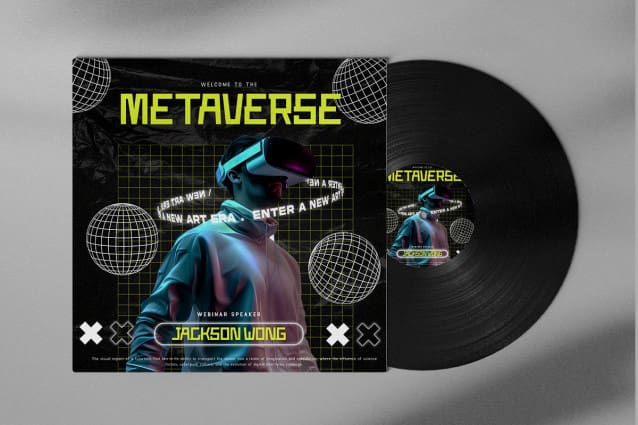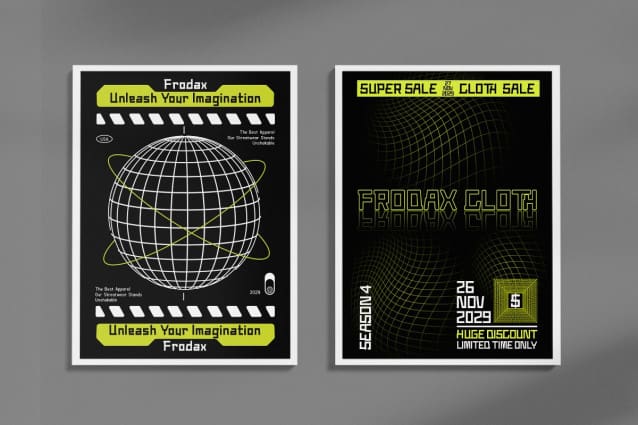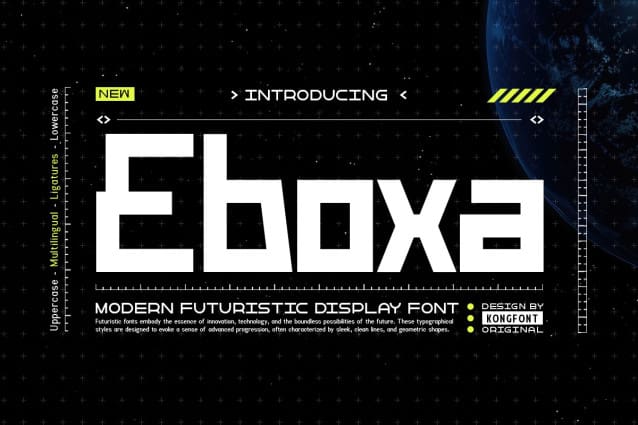
Eboxa Futuristic Font
Eboxa Futuristic Font – Modern Display Futuristic Font features futuristic design elements. Each letter of this font is easily distinguishable. You can read it clearly from a distance as well as from a close-up. The letters in this font resemble a fairly large square block, designed to look modern, futuristic, and mechanical.
A typeface like this is ideal for posters and billboards placed along the roadside that contain product promotions or announcements. Eboxa Futuristic Font – Modern Display Futuristic Font is also a good font to use for a video’s animation. It can be used as a title or subheading that appears in the intro and to write thank you notes at the outro of a video.
Eboxa Futuristic Font – Modern Display Futuristic Font can also be used on book and tech magazine covers. However, because the letters are large and blocky, this type of font is not suitable for writing the contents of newspapers, magazines, or articles on the web. This font is better used to write a short sentence or a word because it will look bold and firm.